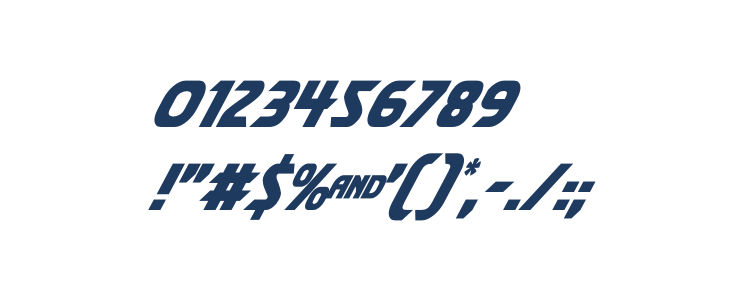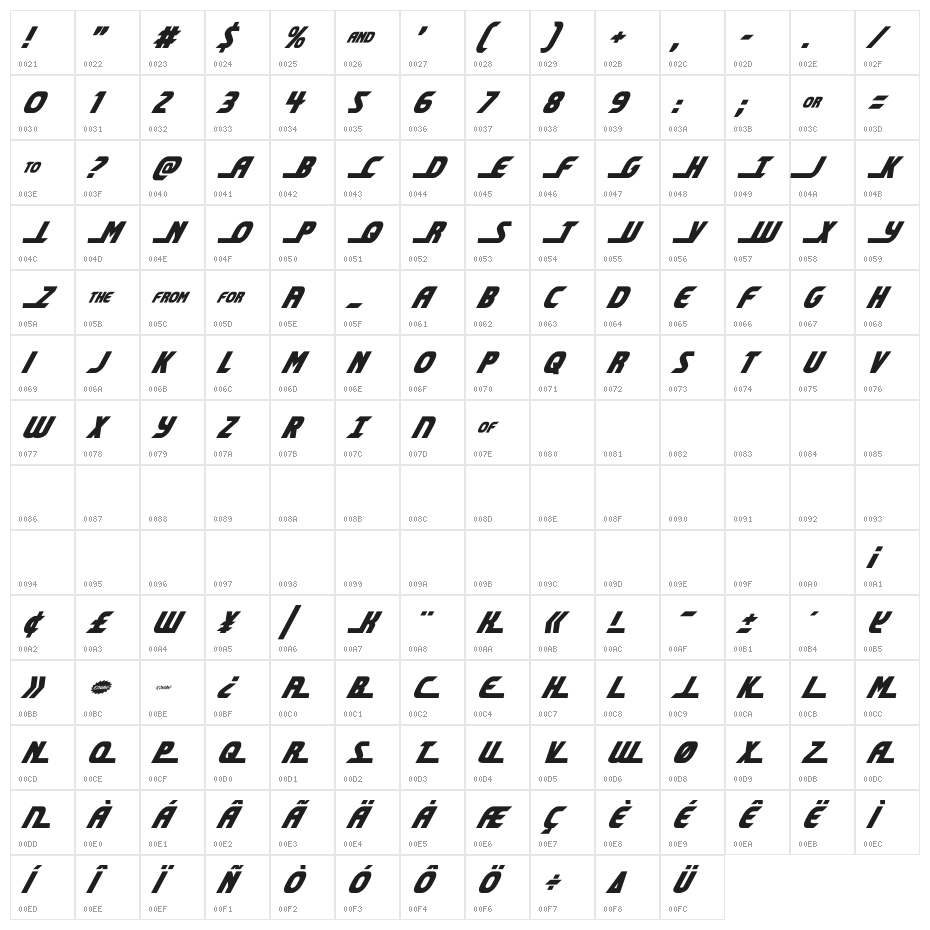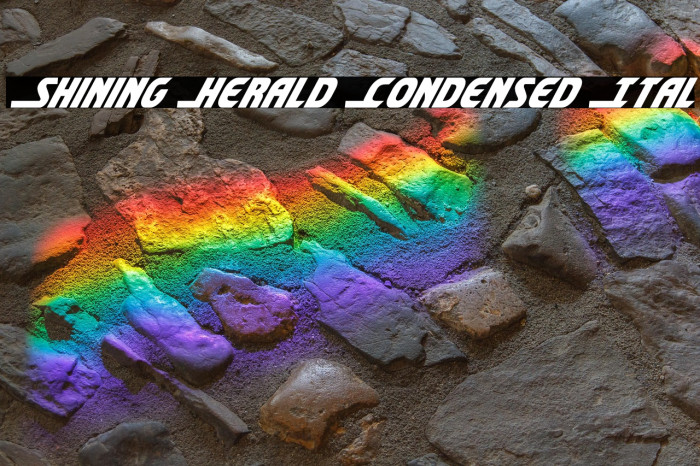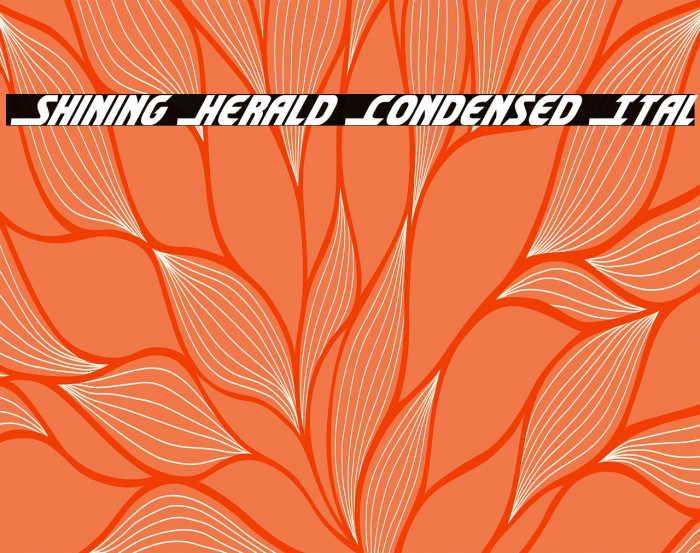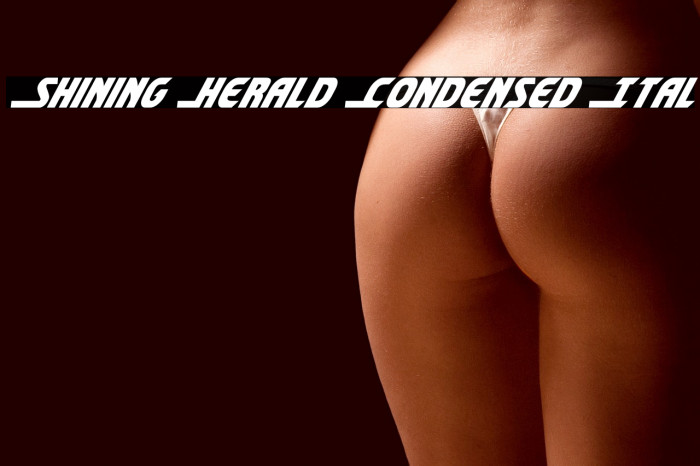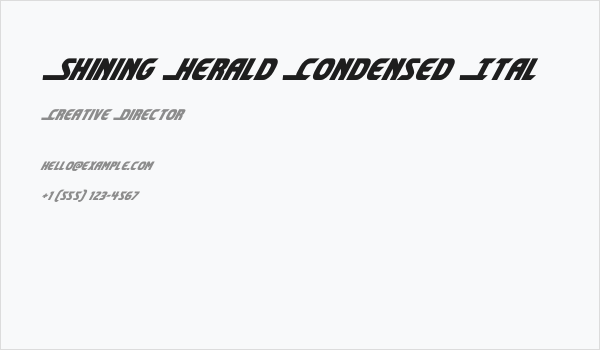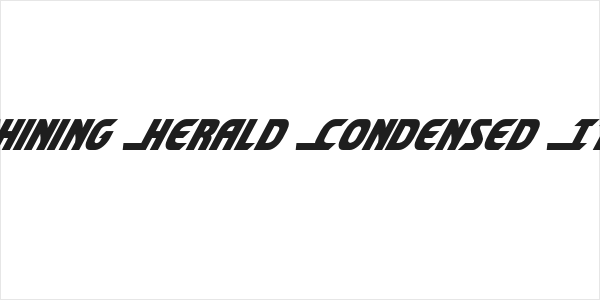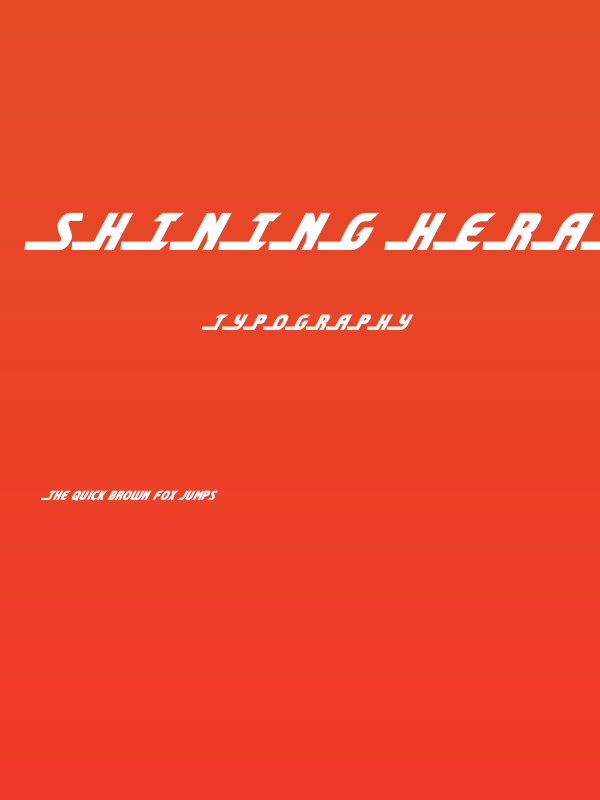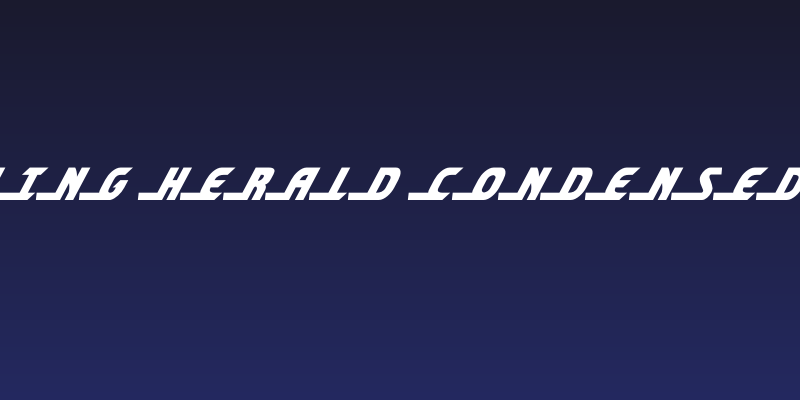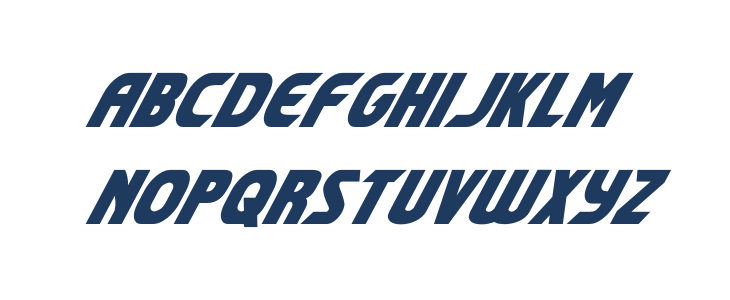
Shining Herald Condensed Ital Font
Shining Herald Condensed Ital Description
This font features a bold and dynamic style with a condensed and italicized form. The characters are sharply angled, giving a sense of movement and urgency. The uppercase letters are particularly striking, with a strong presence that commands attention. The lowercase letters maintain the same boldness, ensuring consistency across the typeface. The numbers are equally bold, making them stand out clearly. Special characters are designed with the same angular and bold characteristics, ensuring they integrate seamlessly with the rest of the font. This font is ideal for projects that require a strong and impactful visual statement.